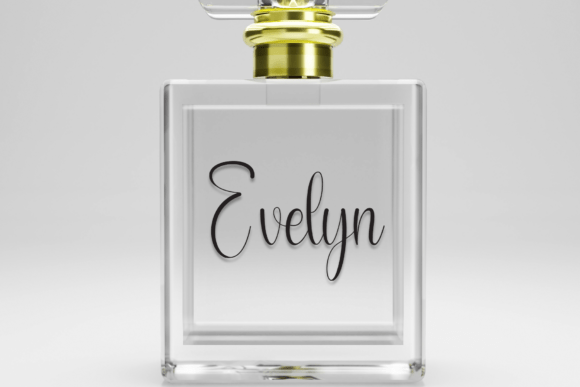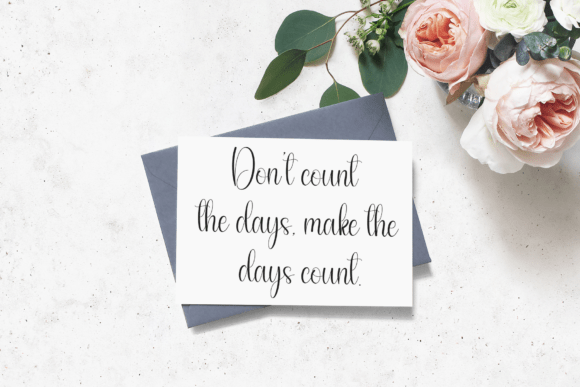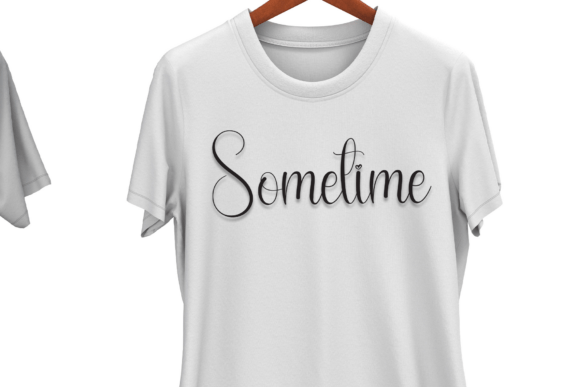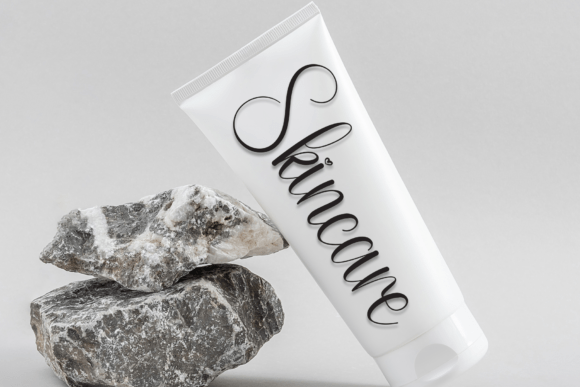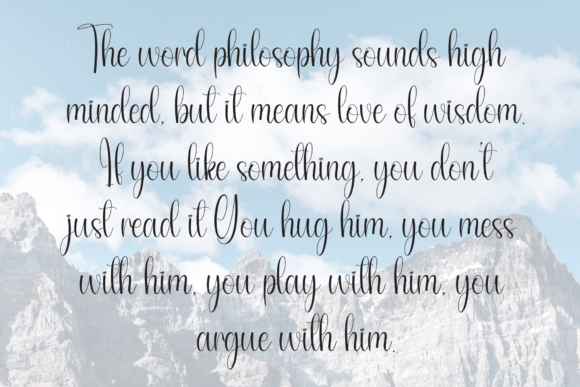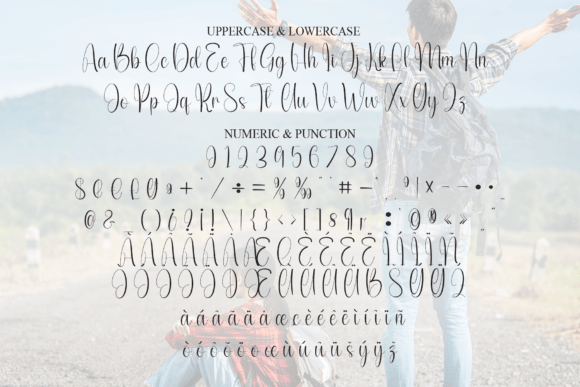
The Perfect Blend of Elegance and Charm: Holliday Font
As a designer, have you ever stumbled upon a font that perfectly captures the essence of a project? For me, that moment came when I discovered the Holliday Font. Its fluid, handwritten script strokes immediately drew me in, and I knew I had to learn more. This stylish font exudes elegance and charm, making it a perfect addition to any branding, invitation, or stationery design.
What sets Holliday Font apart is its ability to add a personal and sophisticated touch to any design. The smooth curves and natural flow create a timeless, refined look that’s sure to impress. Whether you’re a seasoned designer or just starting out, the Holliday Font is a valuable tool to have in your arsenal. Its versatility and charm make it a must-have for any project that requires a touch of elegance and sophistication.
Holliday Font Key Features
- Font Family: Holliday Font is a script font designed for elegant and luxurious typography.
- Unique Characteristics: Holliday Font features intricate details, swashes, and ornaments, adding a touch of sophistication and elegance to any design.
Holliday Font Review
I recently had the chance to work with the Holliday Font, and I have to say, it’s a mixed bag. ✨ One thing that really stands out is the unique and playful feel of the font. It’s perfect for projects that need a touch of whimsy and personality.
Here are some of the things that work well with Holliday Font:
- ✨ Versatility: Holliday Font can be used for a wide range of projects, from branding to editorial content.
- ✨ Expressiveness: The font has a lot of character and can add a lot of emotional depth to your designs.
- ✨ Readability: Despite its playful nature, Holliday Font is surprisingly easy to read.
- ⚠️ Limited legibility at small font sizes: Holliday Font can be a bit difficult to read when it’s used at small font sizes.
- ⚠️ Overuse: The font’s playful nature can make it feel gimmicky if it’s used too much.
Overall, I think Holliday Font is a great addition to any designer’s toolkit. While it may have some limitations, its unique personality and versatility make it a great choice for the right projects.
The Holiday Font is ideal for creating festive and seasonal designs, including:
- Christmas and New Year’s Eve invitations and cards.
- Thanksgiving and Halloween party decorations and invitations.
- Summer and winter holiday-themed social media graphics.